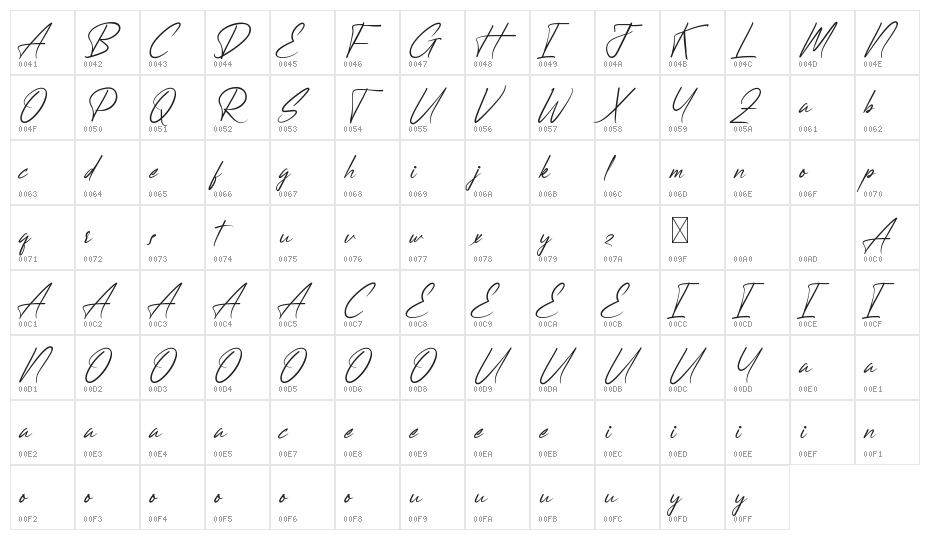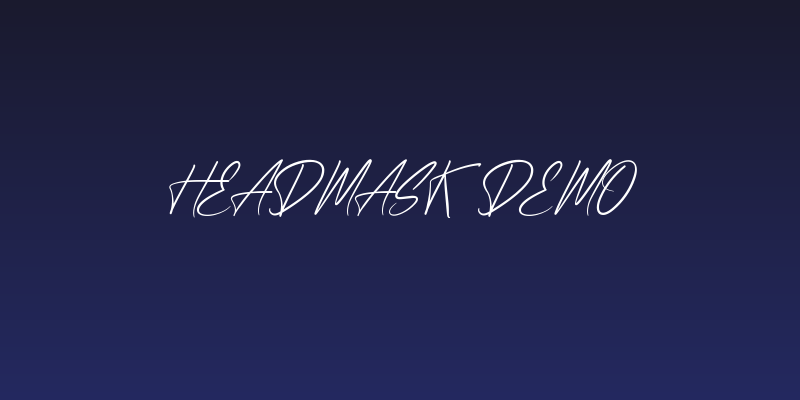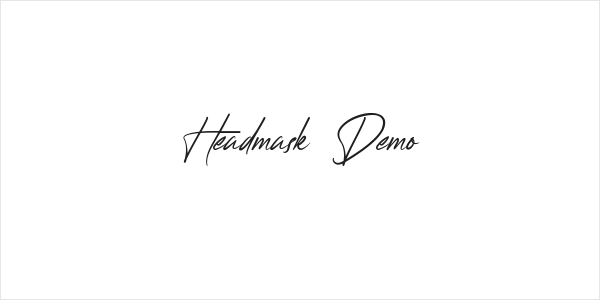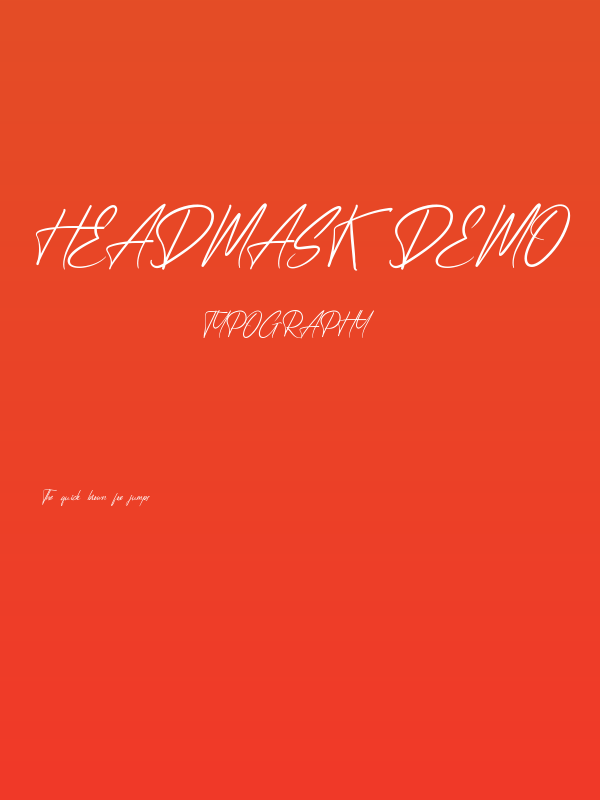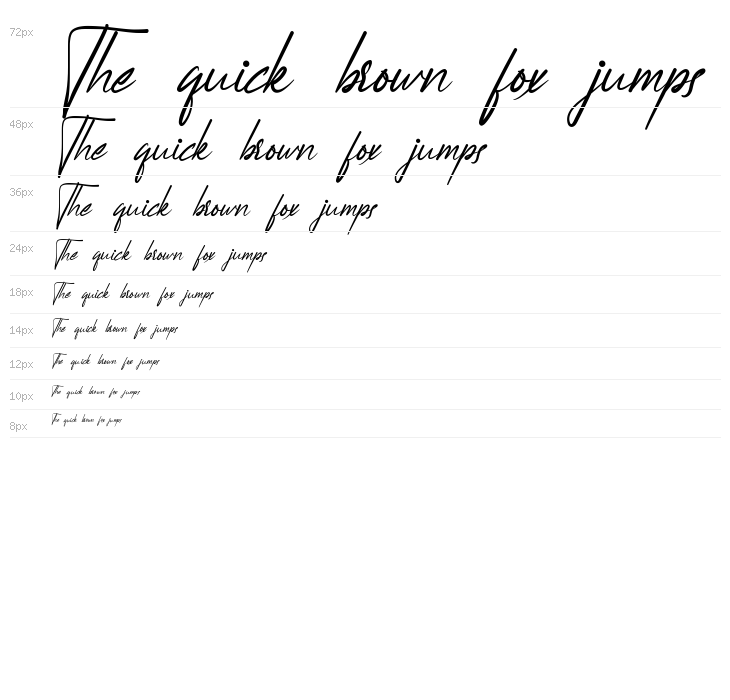
Headmask Demo Font
Headmask Demo Description
A highly stylized, handwritten script font with elongated, sweeping strokes and a dynamic, energetic flow. The characters are slanted and feature variable line thickness, giving a lively and expressive appearance.
| Overall Style | Decorative, Modern, Artistic |
| Use Case | Logos, Headlines, Invitations, Posters |
| Proposed Projects | Event invitations, artistic posters, branding for creative businesses, fashion magazines, personal signatures. |